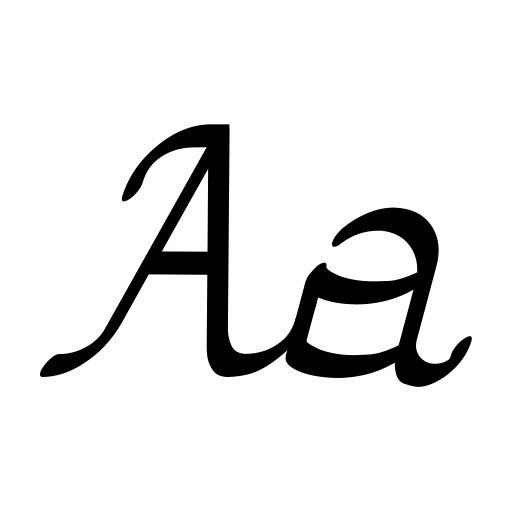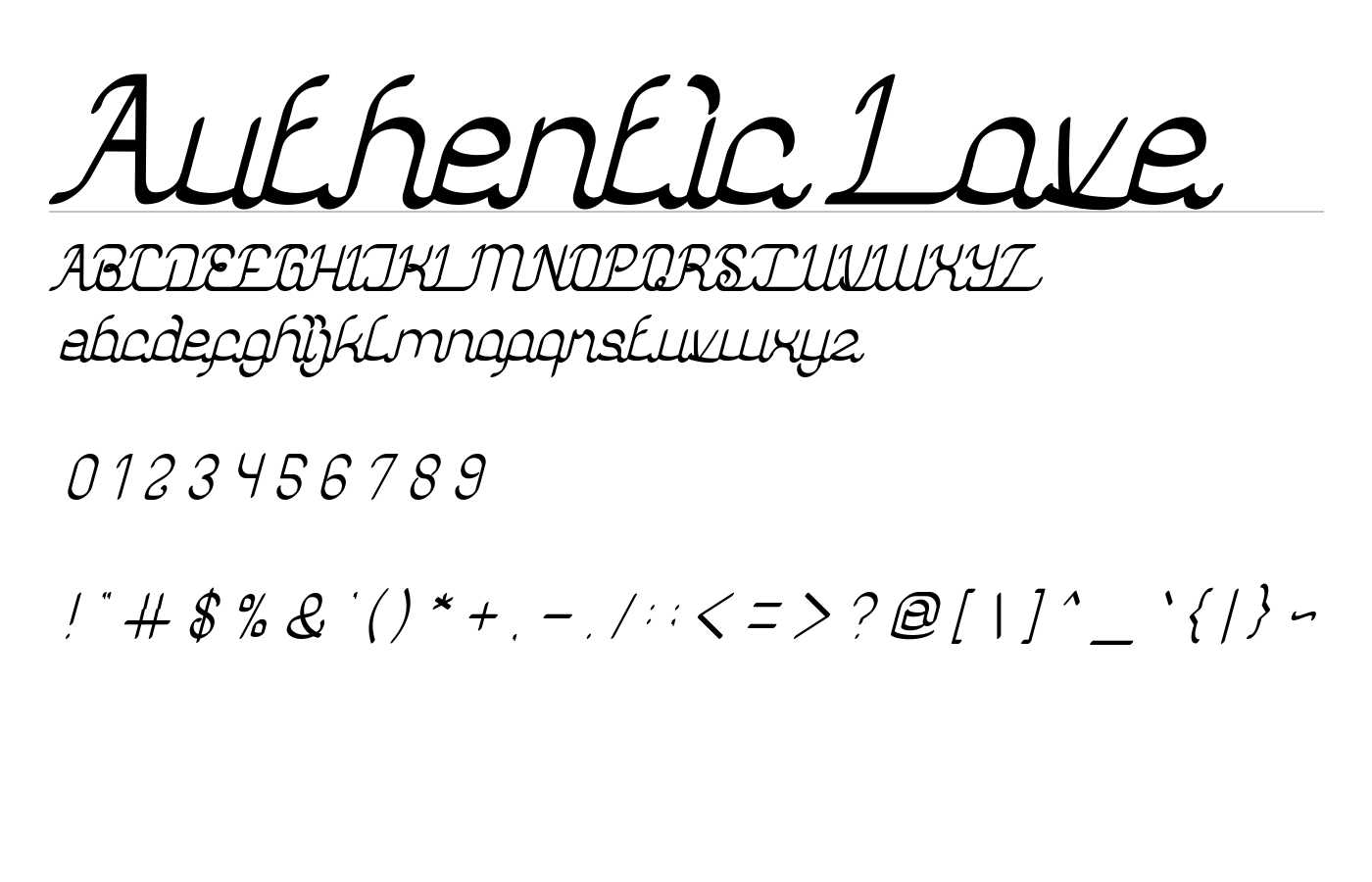
Authentic Love is a stylish script font that blends elegance with a modern, handwritten feel. Its thin, smooth strokes and unique letterforms add a personal, romantic touch, making it perfect for wedding invitations, branding, and designs that need a graceful yet distinctive look. This font works beautifully in headlines and decorative text where warmth and charm are desired.
Authentic Love Font
About Authentic Love Font
| Font family | Authentic Love Font |